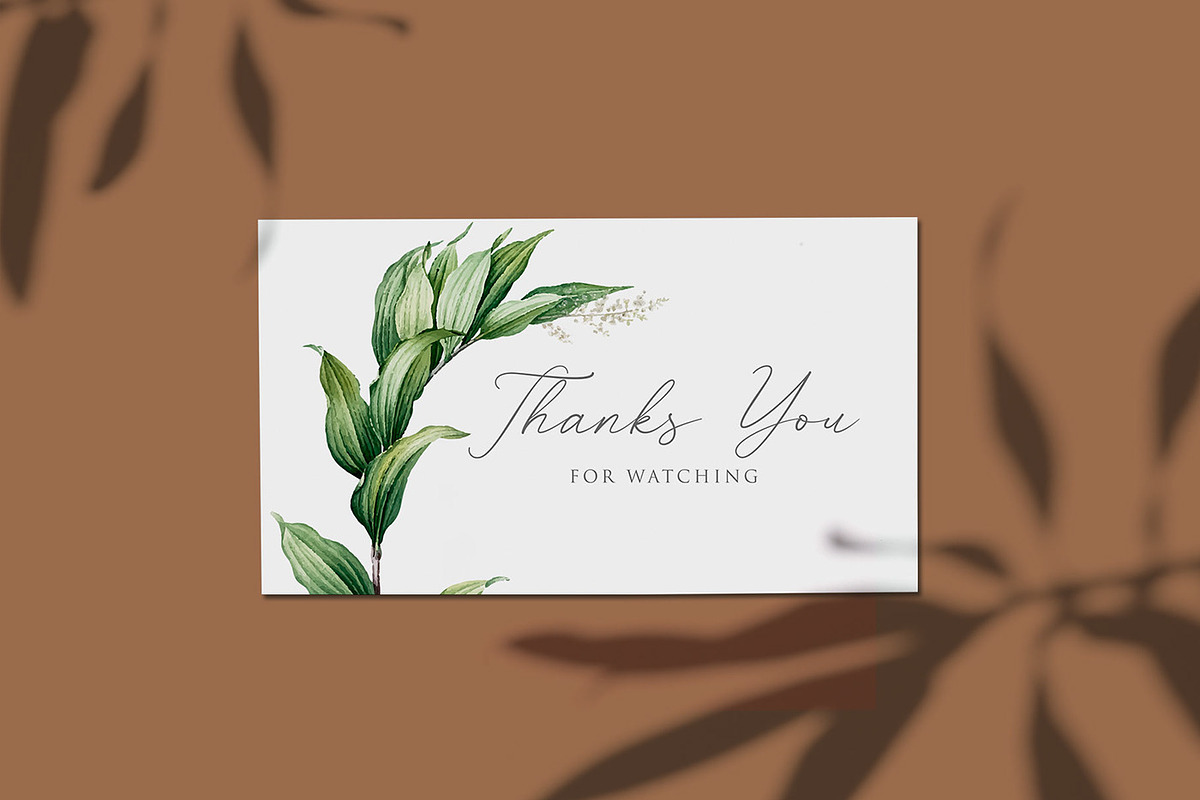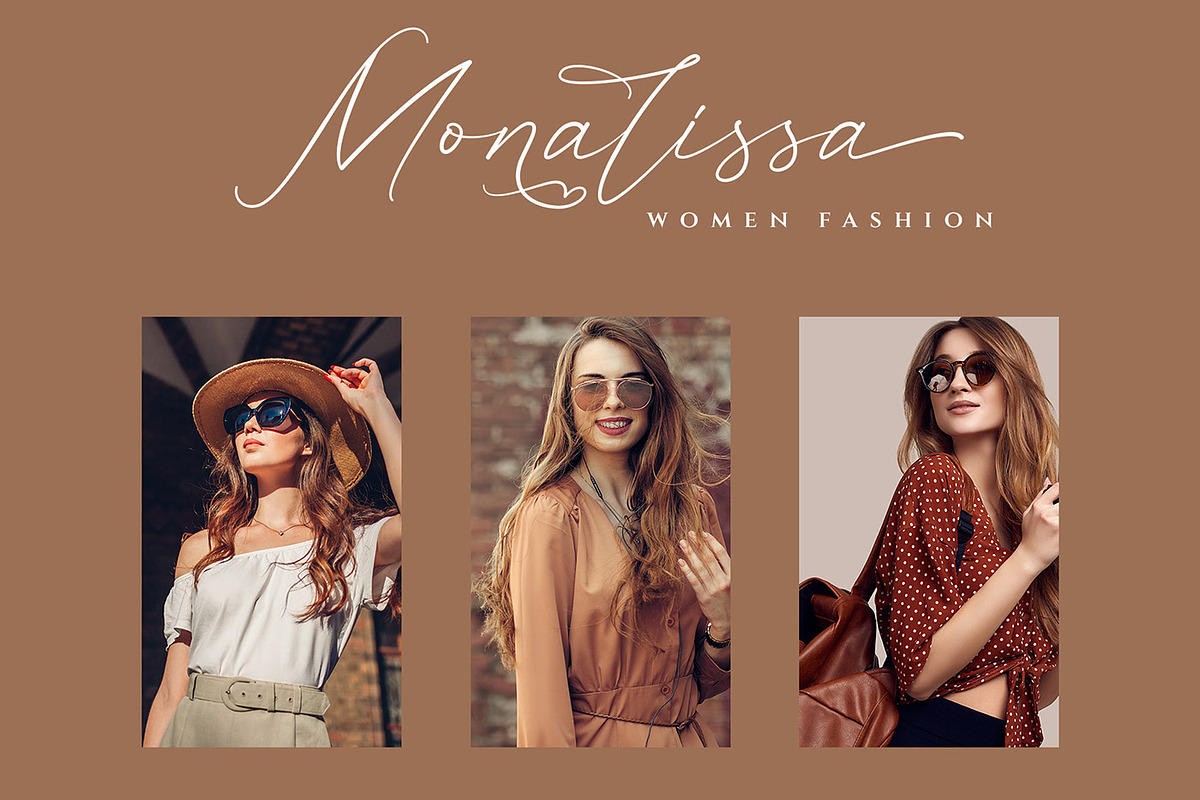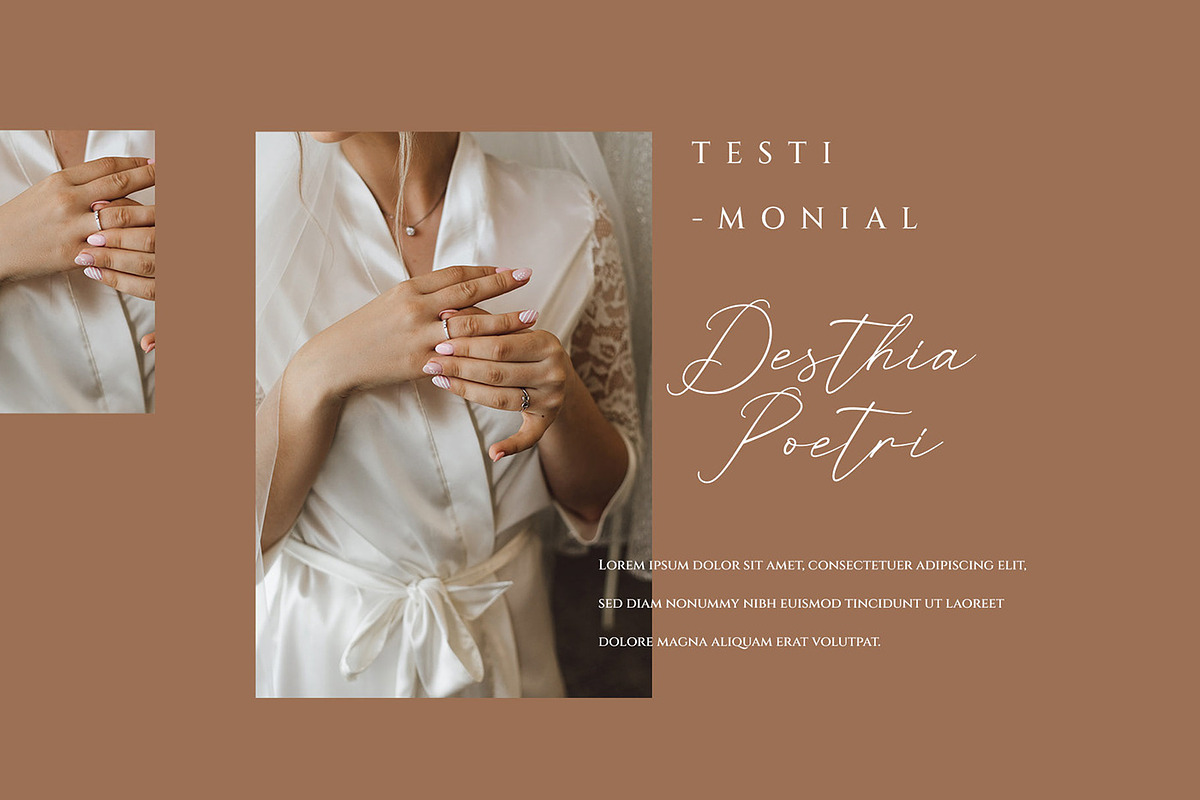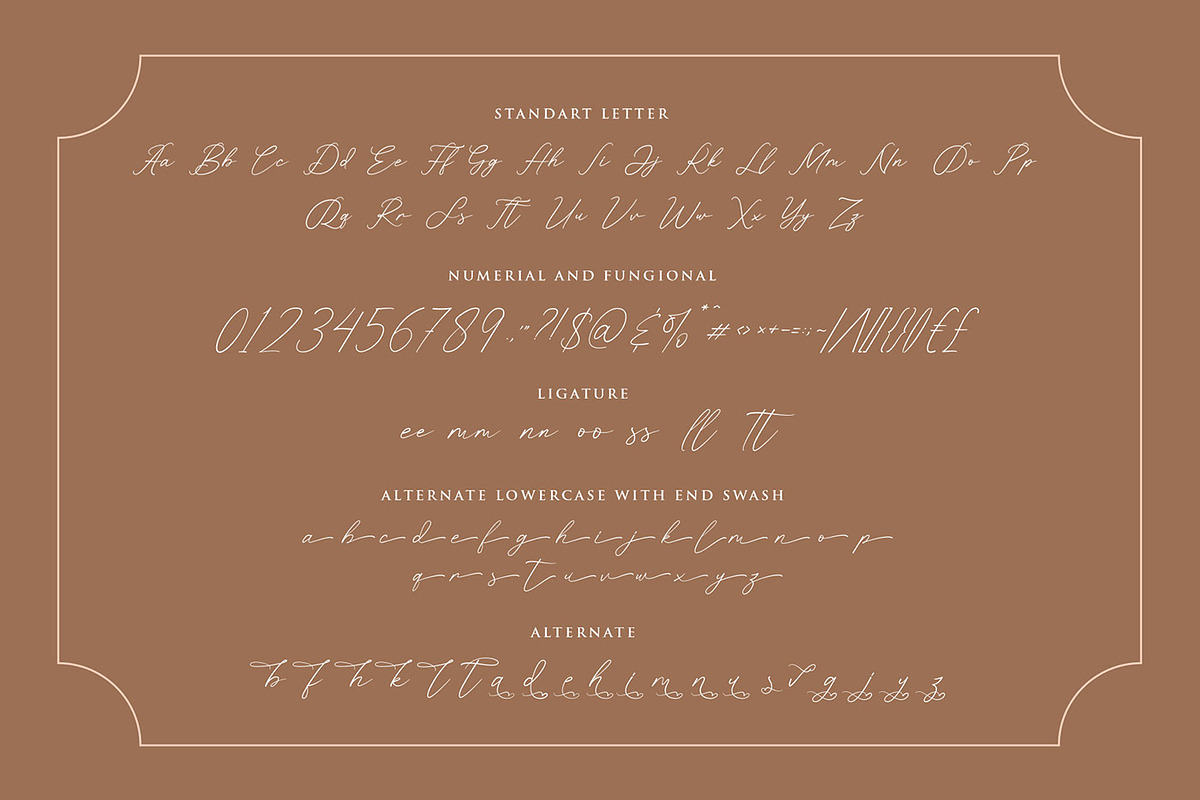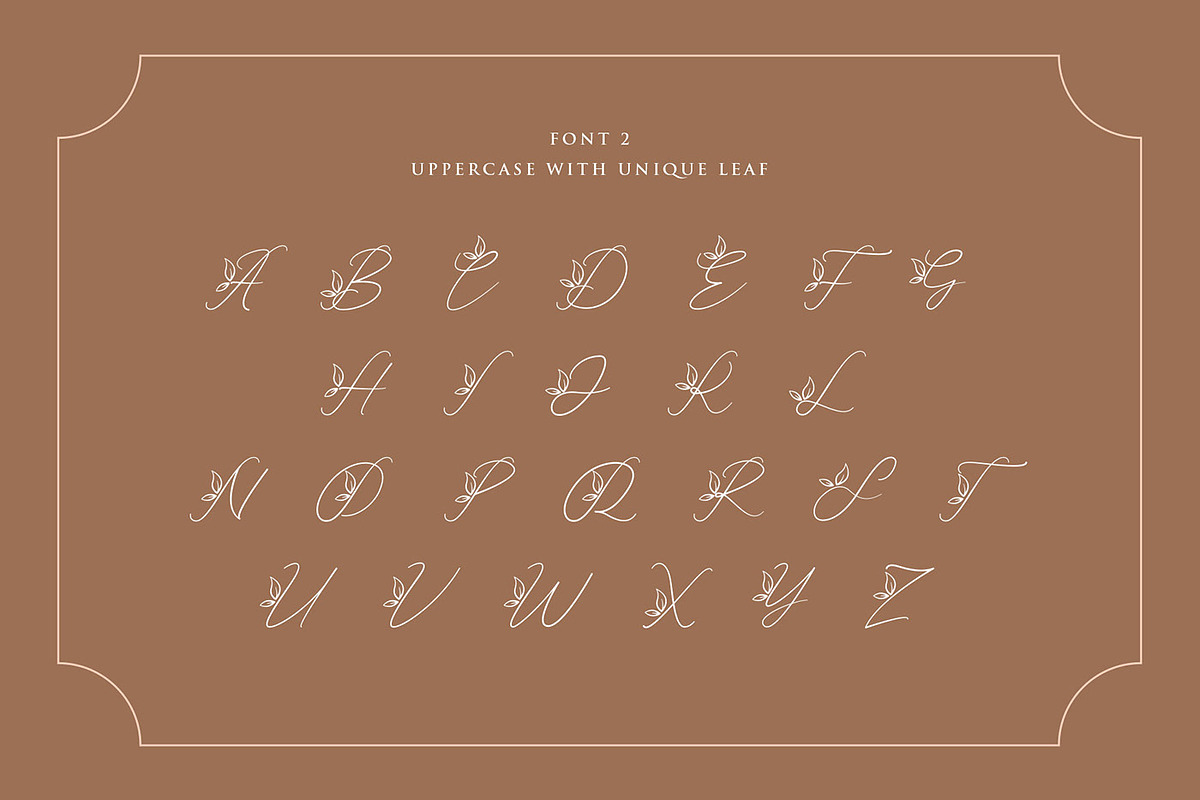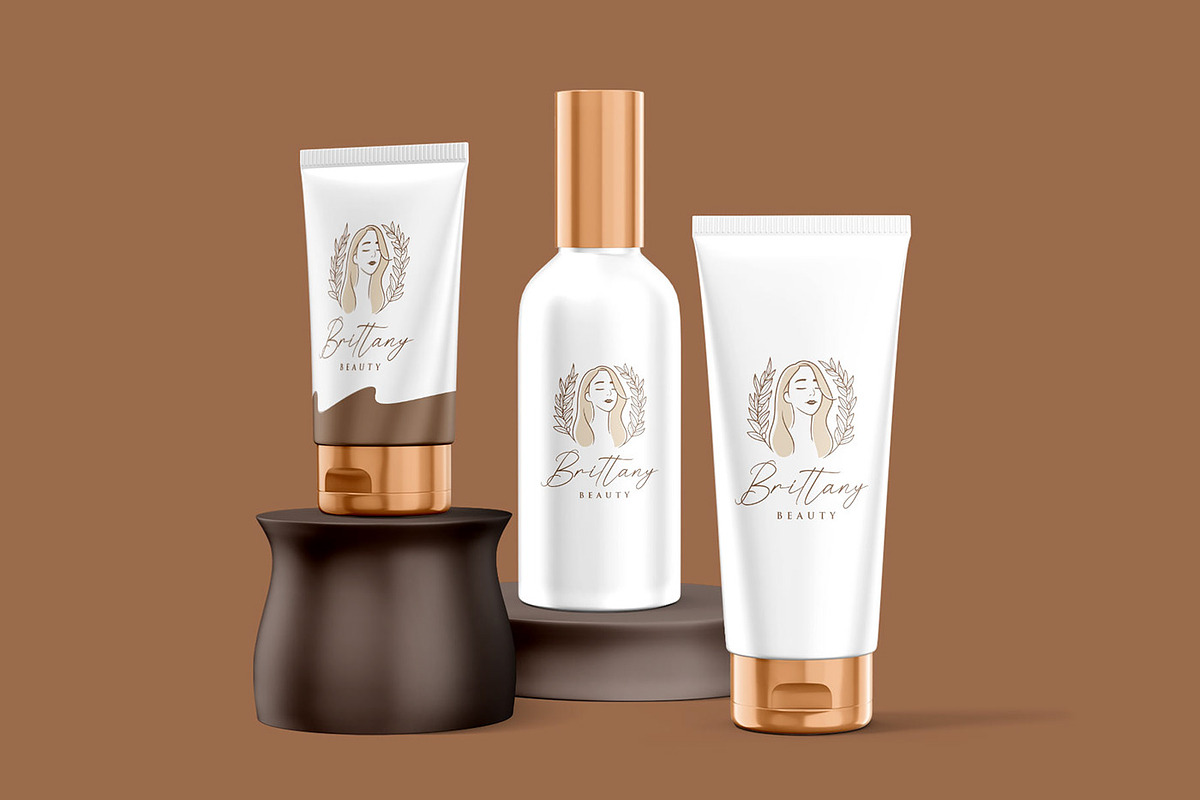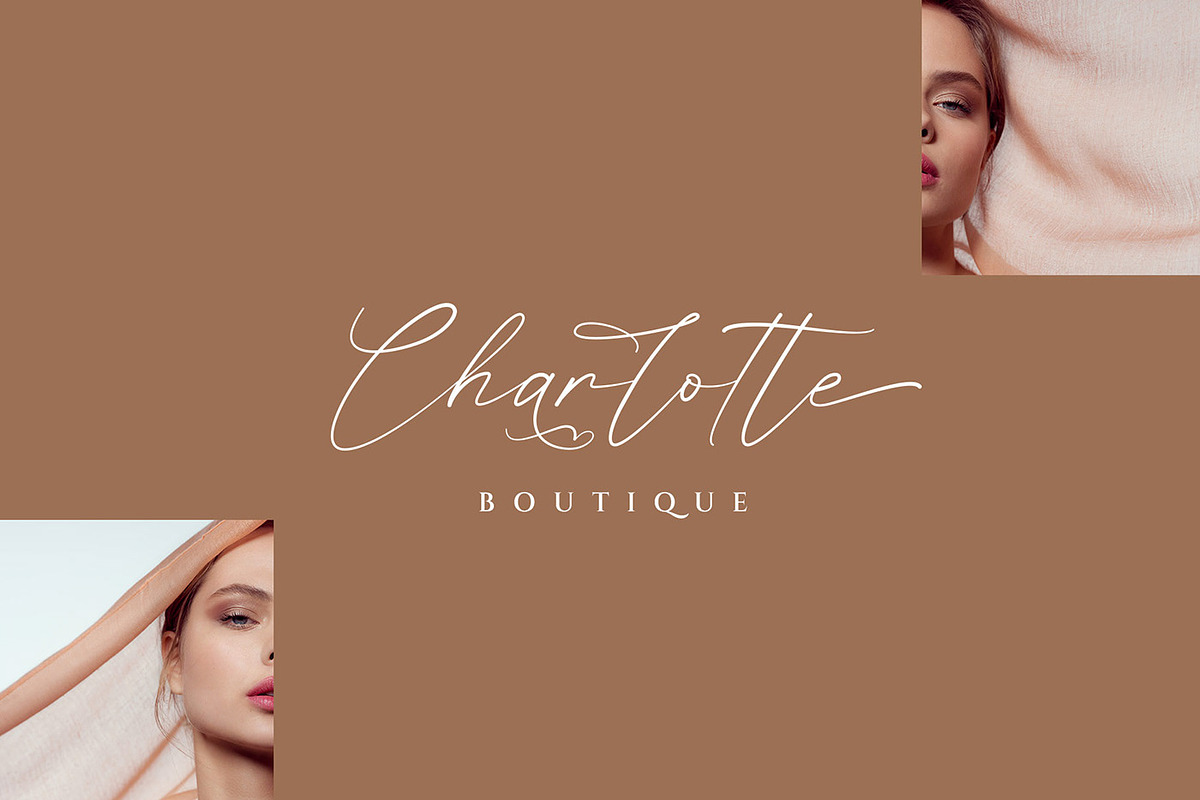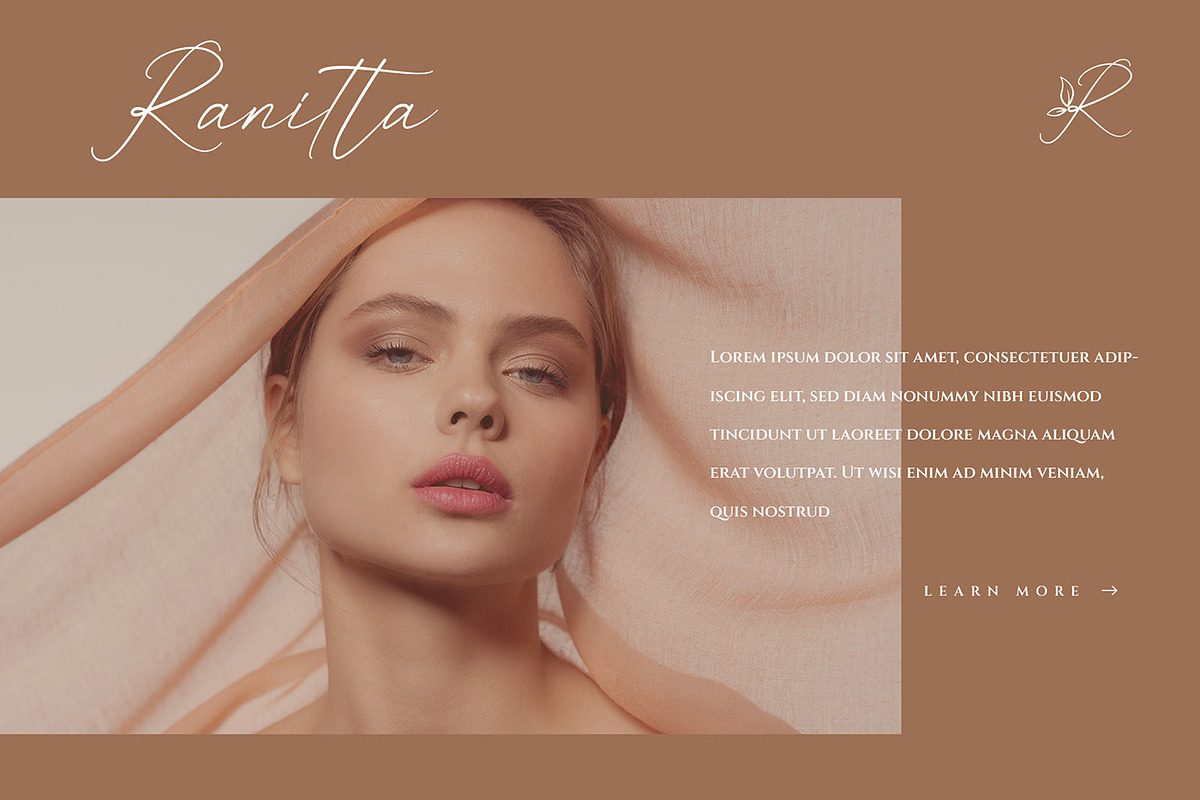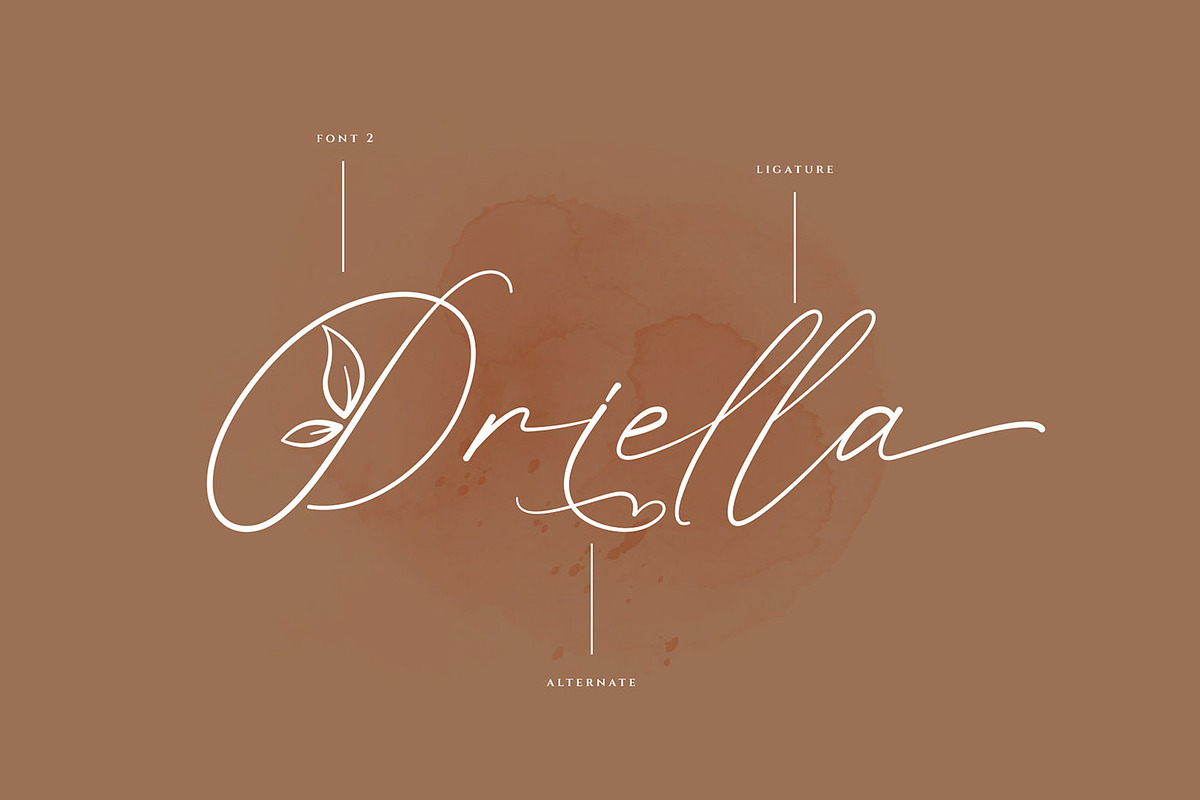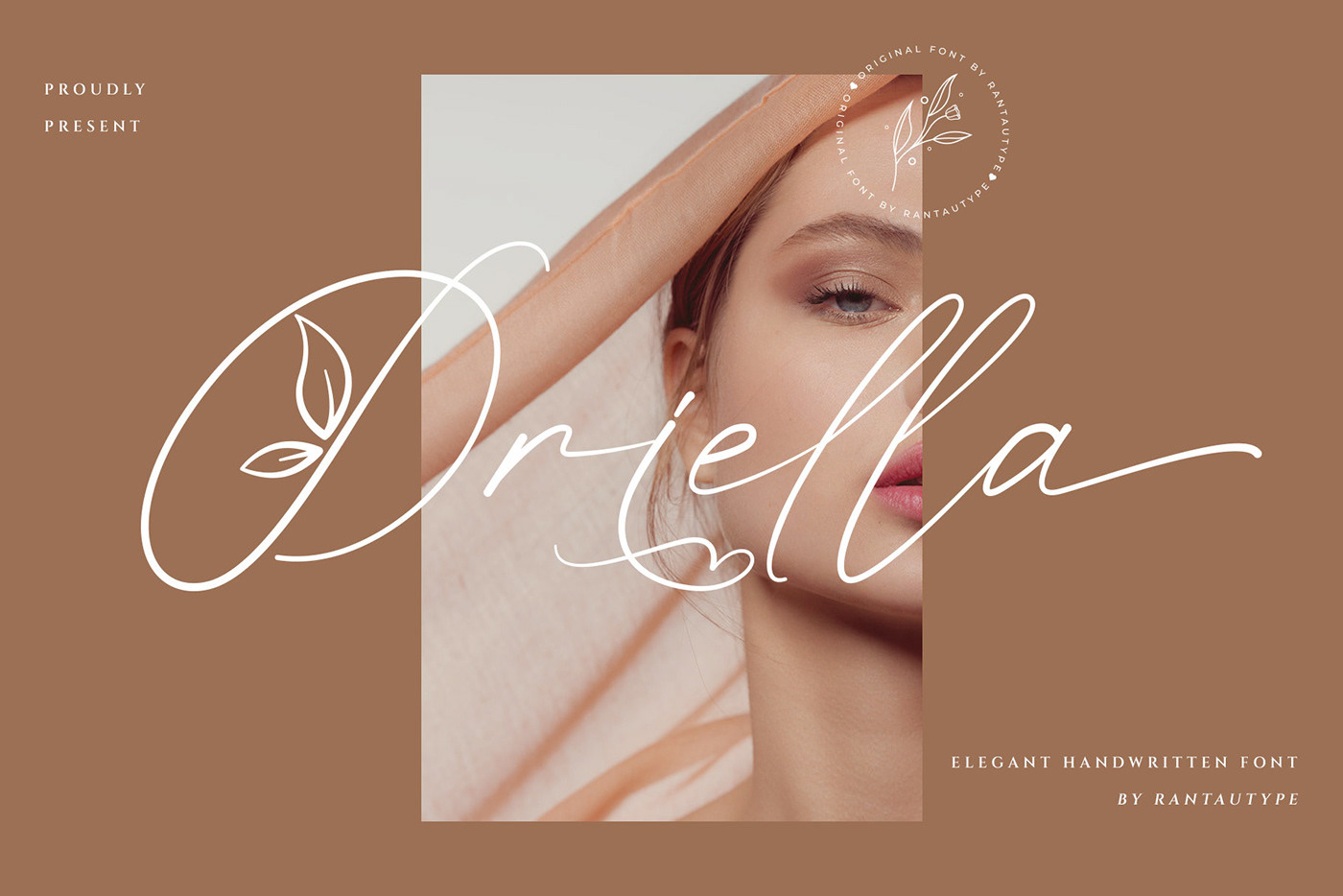
Oriella - Luxury Handwritten Font
Hi Ladies and Gentleman ! Proudly present another luxury handwritten font “Oriella”. This font is elegant style which can be interpreted professional. we keep this font looks elegant, luxury, premium, modern, readable, stylish, feminine, girly, catchy and easy to use. Also included 2 font with reguler and font two the uppercase with leaf so make you design more beautiful. Oriella is the great choice for watermark on photography, signature or signature logo design, quotes, album cover, magazine, business card and many other design project. Oriella here to make your work to high level!!!
- 2 Font Included (reguler , font 2 with modify Uppercase )
- Standar character A-Z and a-z
- ligature